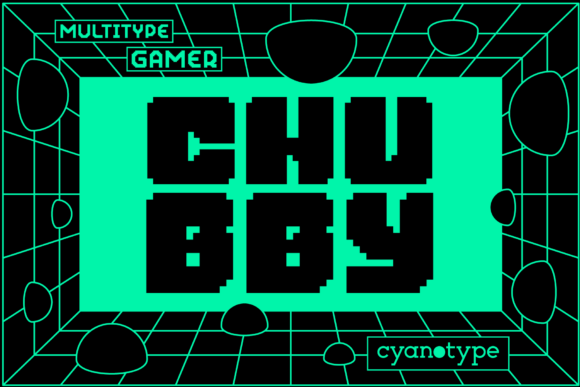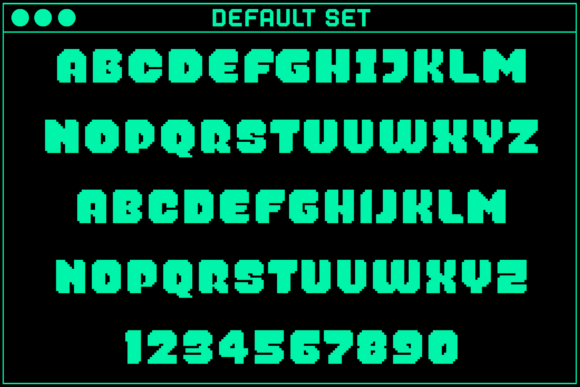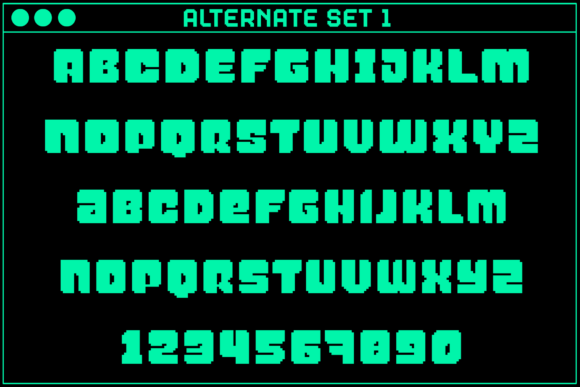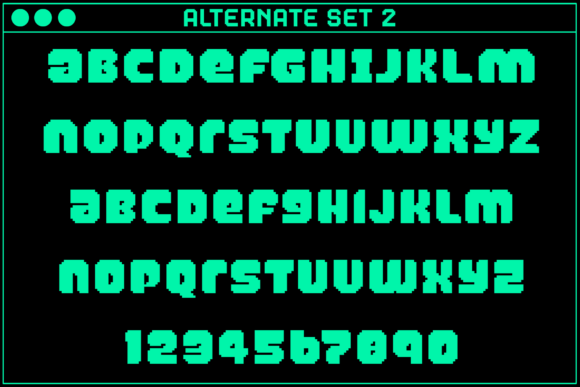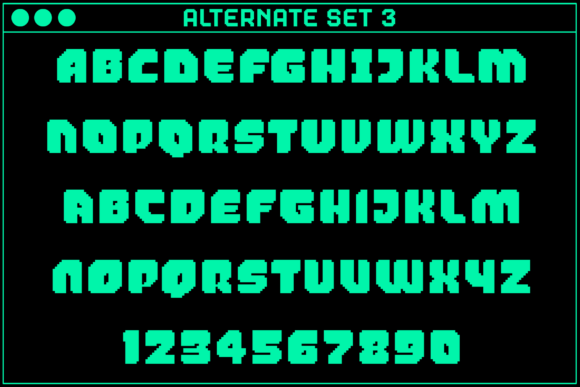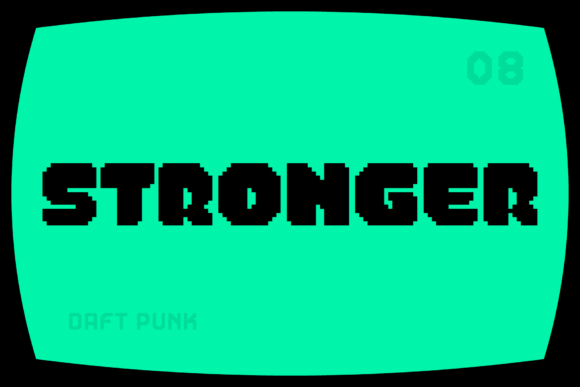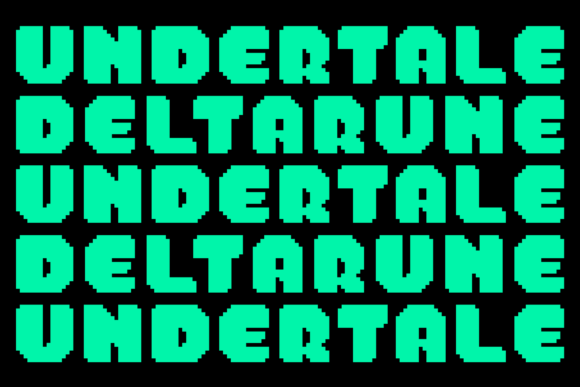
The Ultimate Distortion: Unlocking the Power of Gamer Chubby Font
Have you ever been stuck staring at a blank canvas, trying to think of the perfect font to bring your design to life? We’ve all been there – the cursor blinks, the brain freezes, and suddenly, a spark of creativity strikes. You envision a bold, pixelated display font that screams “gaming chic” and makes your design stand out from the crowd.
Enter Gamer Chubby Font, a uniquely shaped, pixelated display font designed to add a distorted and trendy touch to your designs. With its PUA encoding, you can access all glyphs and swashes with ease, making it a valuable asset for designers looking to level up their creative game. Whether you’re designing a retro gaming-inspired poster or a futuristic sci-fi graphic, Gamer Chubby Font is the perfect addition to your toolkit.
Gamer Chubby Font Key Features
- Resolution: Gamer Chubby Font supports high-resolution designs, making it suitable for use in digital media, such as gaming interfaces, websites, and mobile apps.
- Unique Characteristics: The font features bold, rounded edges and a playful, chunky design, giving it a distinctively “gamer” look that’s perfect for projects related to gaming, technology, and entertainment.
- Number of Glyphs: Gamer Chubby Font includes a wide range of glyphs, including letters, numbers, punctuation marks, and special characters, ensuring that designers have everything they need to create engaging gaming-related content.
- Font Style: The font comes in both regular and bold styles, allowing designers to choose the perfect level of boldness for their projects.
Gamer Chubby Font Review
I recently had the chance to work with the “Gamer Chubby Font” and I must say it’s a unique and attention-grabbing choice for gaming-related projects. ✨ The font’s bold and playful nature makes it perfect for game titles, headings, and even UI elements. It’s definitely a great way to add some personality to your game’s design.
Here are some things that I think work well with the “Gamer Chubby Font”:
- ✨ Unique and playful design: The font’s bold and chunky style makes it stand out from more traditional fonts.
- ✨ Great for headings and titles: The font’s large size and bold weight make it perfect for grabbing the user’s attention.
- ✨ Versatile: The font can be used in a variety of contexts, from game titles to UI elements.
- ⚠️ Limited legibility: The font’s bold style can make it difficult to read at smaller sizes or in certain contexts.
- ⚠️ May not be suitable for all audiences: The font’s playful nature may not be suitable for more serious or professional projects.
Overall, I think the “Gamer Chubby Font” is a great choice for gaming-related projects that need a bold and playful touch. However, it’s not a one-size-fits-all solution, and you should carefully consider whether it’s the right fit for your project.
The Gamer Chubby Font is ideal for gaming-related projects, such as game titles, logos, and promotional materials.
For best results, use the font in bold or italic styles to add emphasis and visual interest.
Alternatives to Gamer Chubby Font
American Typewriter
American Typewriter is a serif font inspired by classic typewriters. It is often used in designs that require a vintage or retro aesthetic, such as advertisements, menus, and packaging.
American Typewriter has a more elegant and sophisticated feel compared to Gamer Chubby Font, which is often associated with gaming culture. American Typewriter is better suited for use in designs that require a more mature and refined tone.